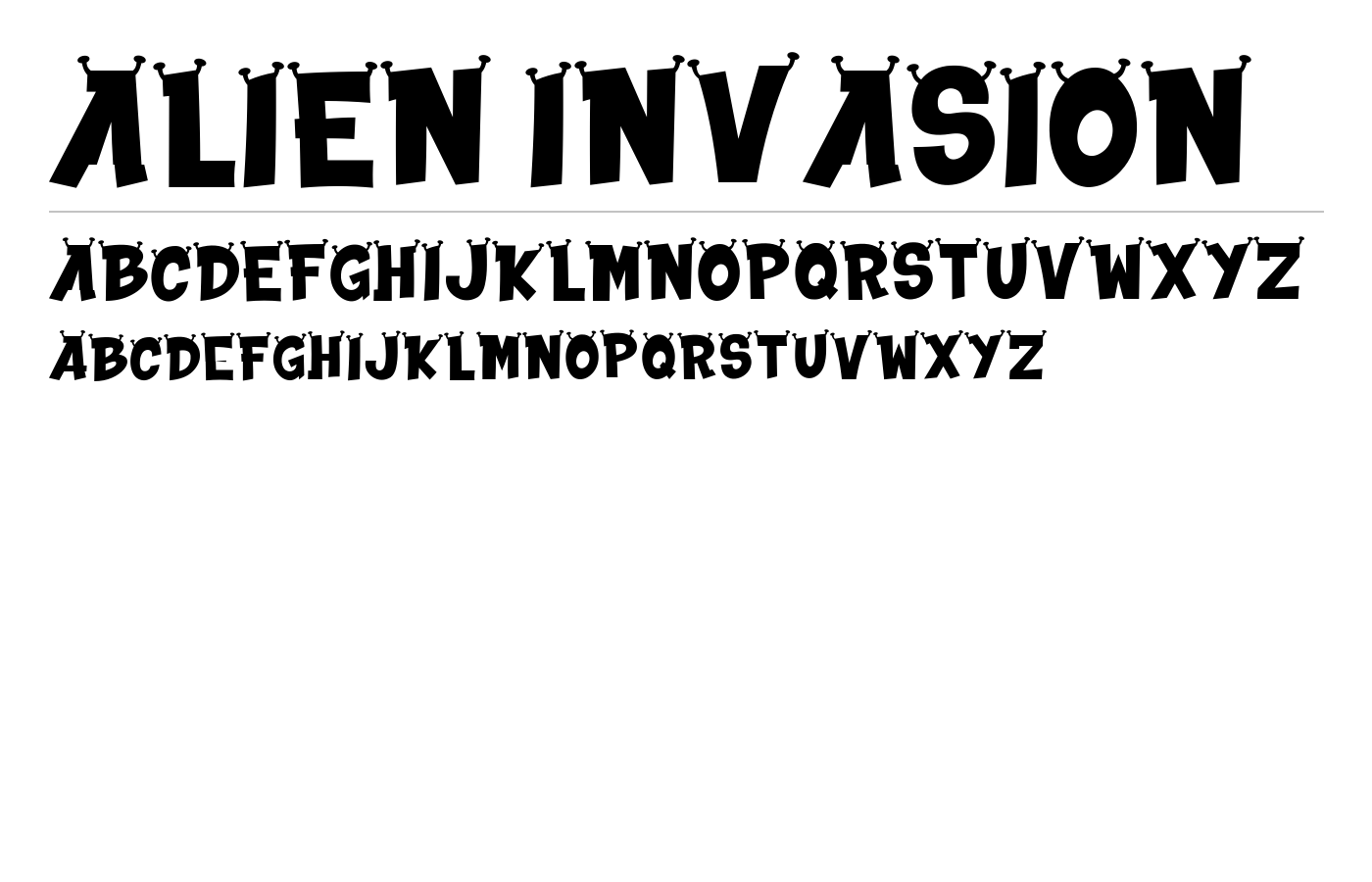
ALIEN INVASION is a playful and bold display font characterized by its quirky, irregular letterforms and unique antenna-like dots on the uppercase characters. With its heavy weight, condensed width, and whimsical style, it evokes a fun, sci-fi vibe perfect for eye-catching headlines, posters, and branding that aims for a lively, extraterrestrial theme. This font is ideal for creative projects that want to convey a sense of adventure and otherworldly excitement.
ALIEN INVASION Font
About ALIEN INVASION Font
| Font family | ALIEN INVASION Font |
| Designer | Fachranheit 2019 |